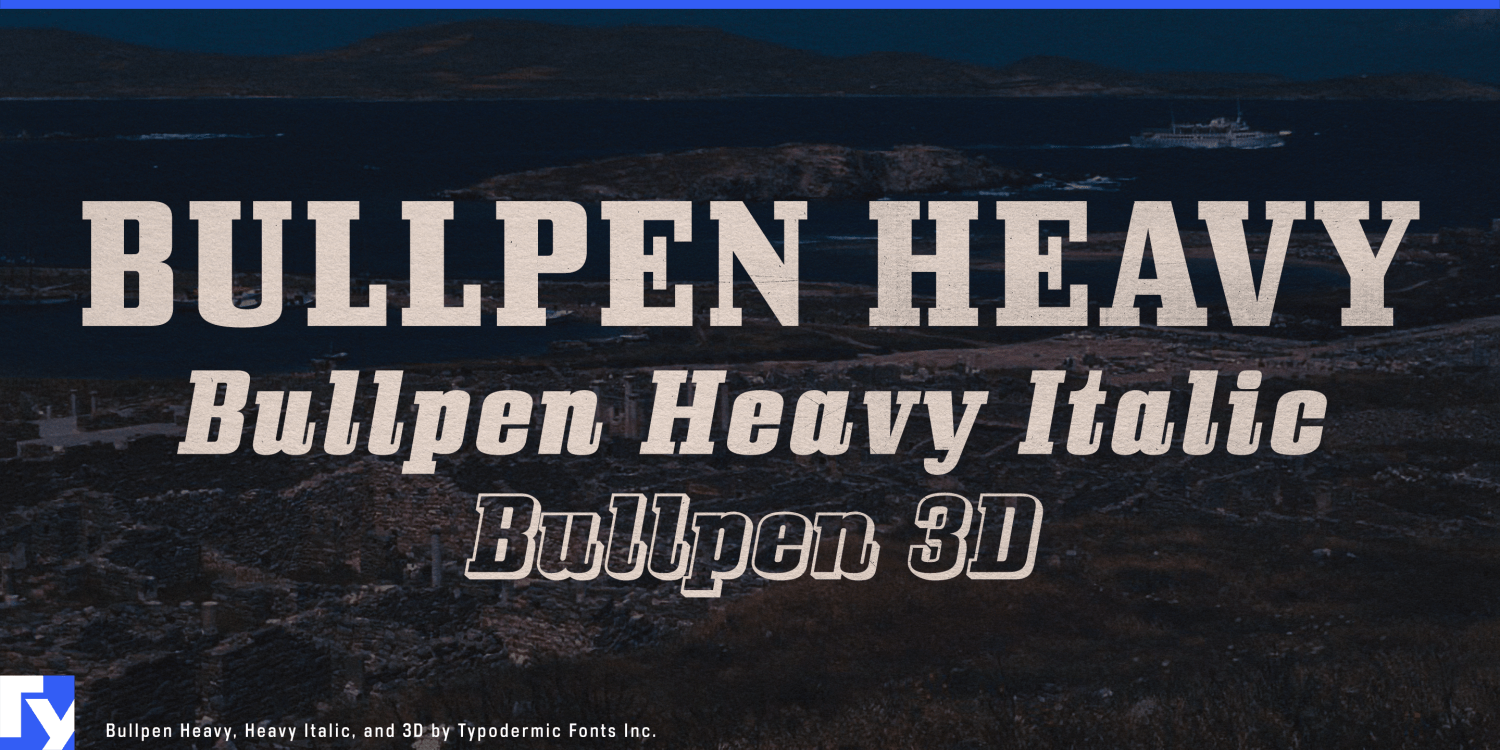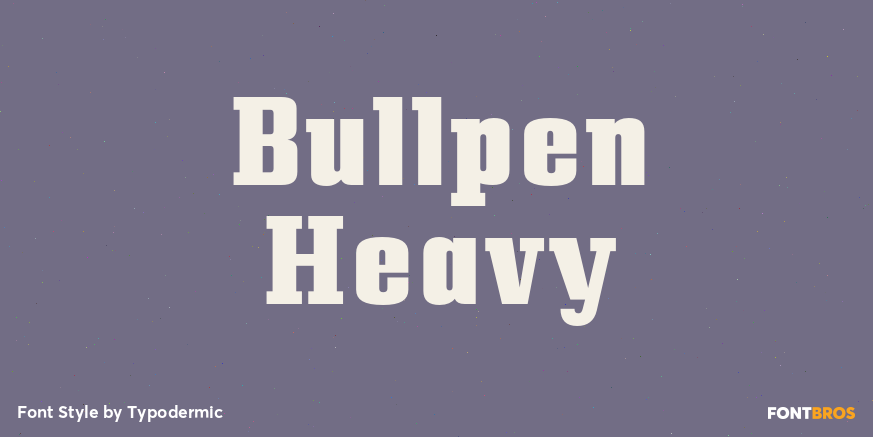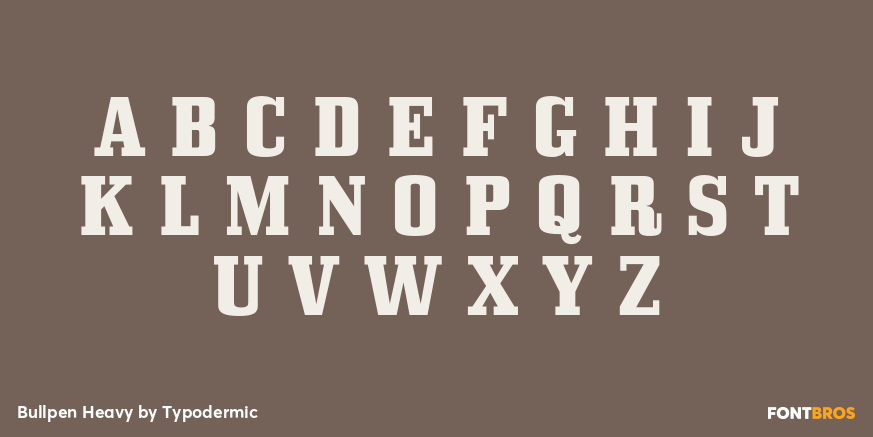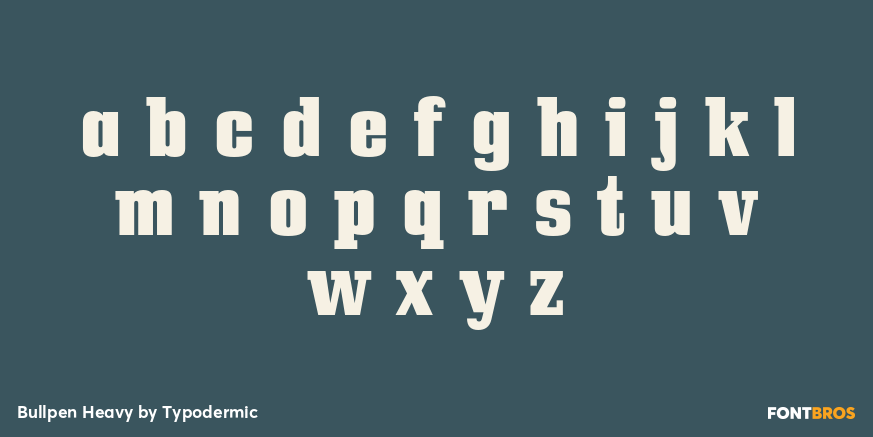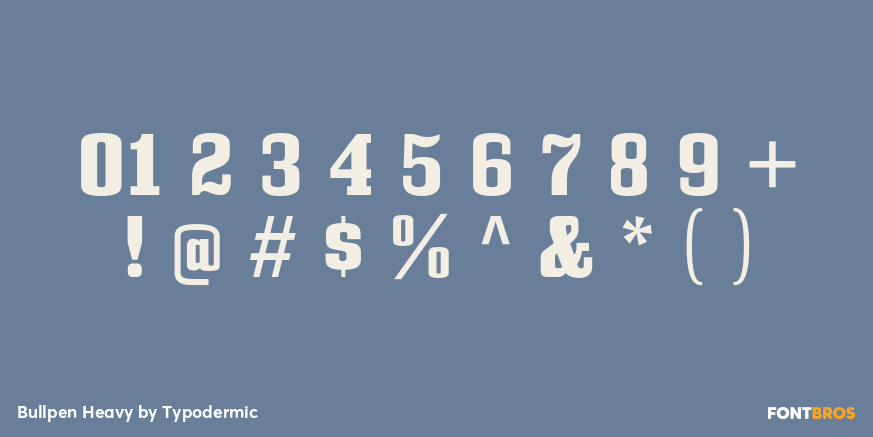
Bullpen Heavy
Buy NowA strong slab serif can establish a team or equipment brand quickly. The trouble begins when that identity has to do quieter work. Player introductions become hospitality signage; a machine badge becomes a technical presentation; game-day graphics have to coexist with museums, lounges, training facilities and sponsor events. Switching to a neutral sans solves the volume problem but often removes the character that made the identity recognizable. Bullpen keeps its square, mechanical voice from Hairline through Heavy, letting designers reduce the volume without changing personalities.
That range makes Bullpen especially useful for professional sports organizations whose identities extend beyond the field. Heavy and Bold can handle season campaigns, rivalry graphics, player introductions, concourse headers and team-store walls. Regular and Light can move into schedule categories, museum displays, suite names, sponsor-hospitality graphics and secondary headings. Hairline can carry the same underlying structure into premium club areas and architectural graphics where conventional athletic lettering would feel unnecessarily loud.
Modern stadium districts create an even broader hierarchy problem. Teams increasingly operate restaurants, retail, museums, plazas, lounges and entertainment spaces around the venue. Bullpen’s lighter weights can retain the organization’s squared slab character in venue names, heritage displays, district programming and hospitality graphics without making every space feel like game-day merchandise.
Connected training equipment gives the same range a product role. Commercial strength machines, rowing and ski trainers, batting simulators and performance-testing systems combine substantial physical hardware with screens, software and data. Bullpen’s mechanical slabs make sense beside steel frames, equipment housings and molded components, while lighter weights keep model families, training programs and launch graphics from becoming overpowering.
The family is equally useful as heavy machinery moves toward electric power and automation. Compact loaders, excavators, utility equipment and commercial landscaping machines still need to look like serious equipment even when the powertrain changes. Heavy retains the solidity expected around machinery, while Hairline, Thin and Light expose the same square construction in a cleaner, more technical form. Product-series names, dealer launches, trade-show environments, equipment decals and specification headings can evolve without making the manufacturer suddenly look like a software startup.
Bullpen’s italics add another level of hierarchy for player names, statistics, matchups, performance data and directional copy, while the original 3D style remains available for the largest graphic moments. Its real strength is the distance between Hairline and Heavy: Bullpen can still shout when the scoreboard demands it, but it no longer has to shout everywhere else.